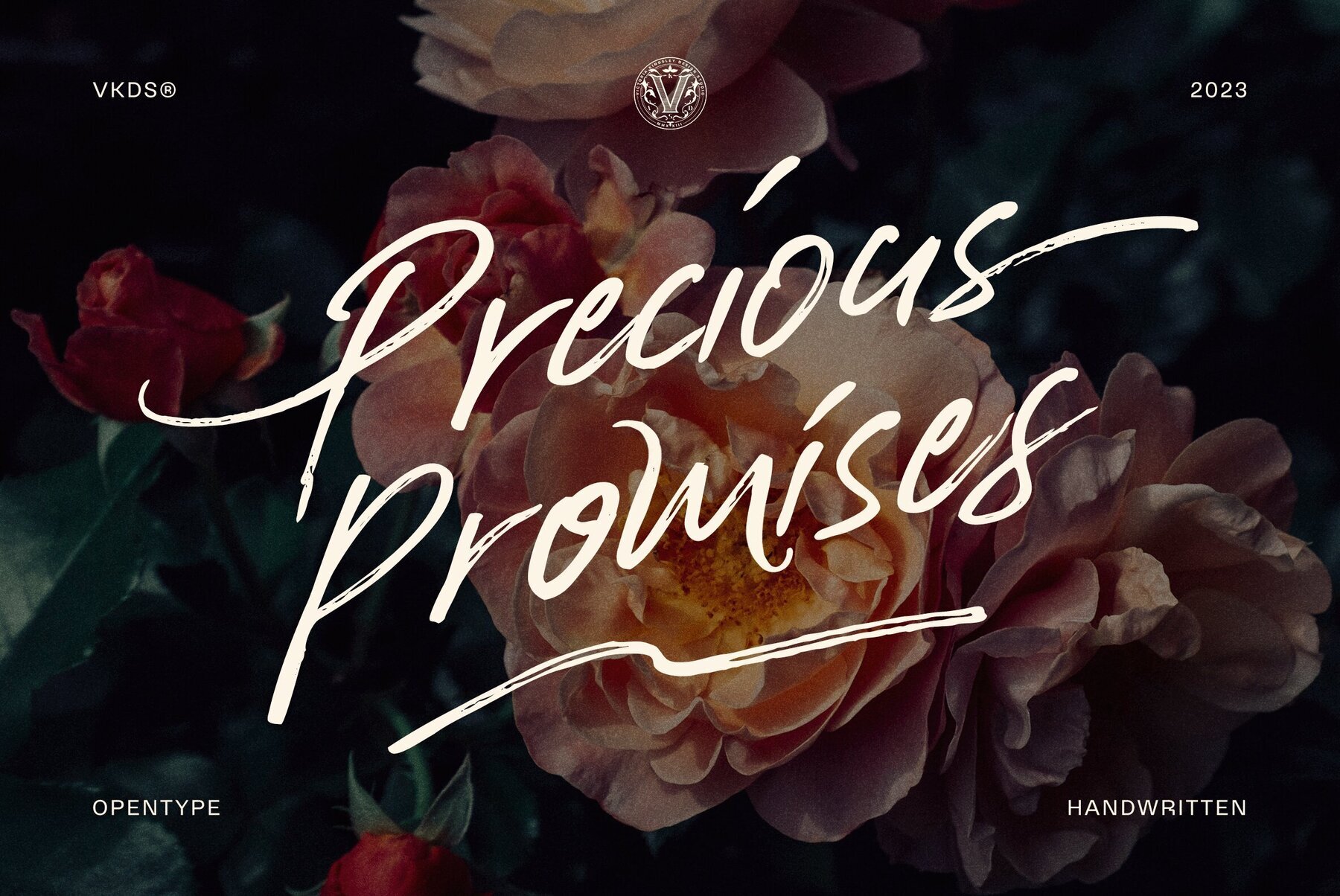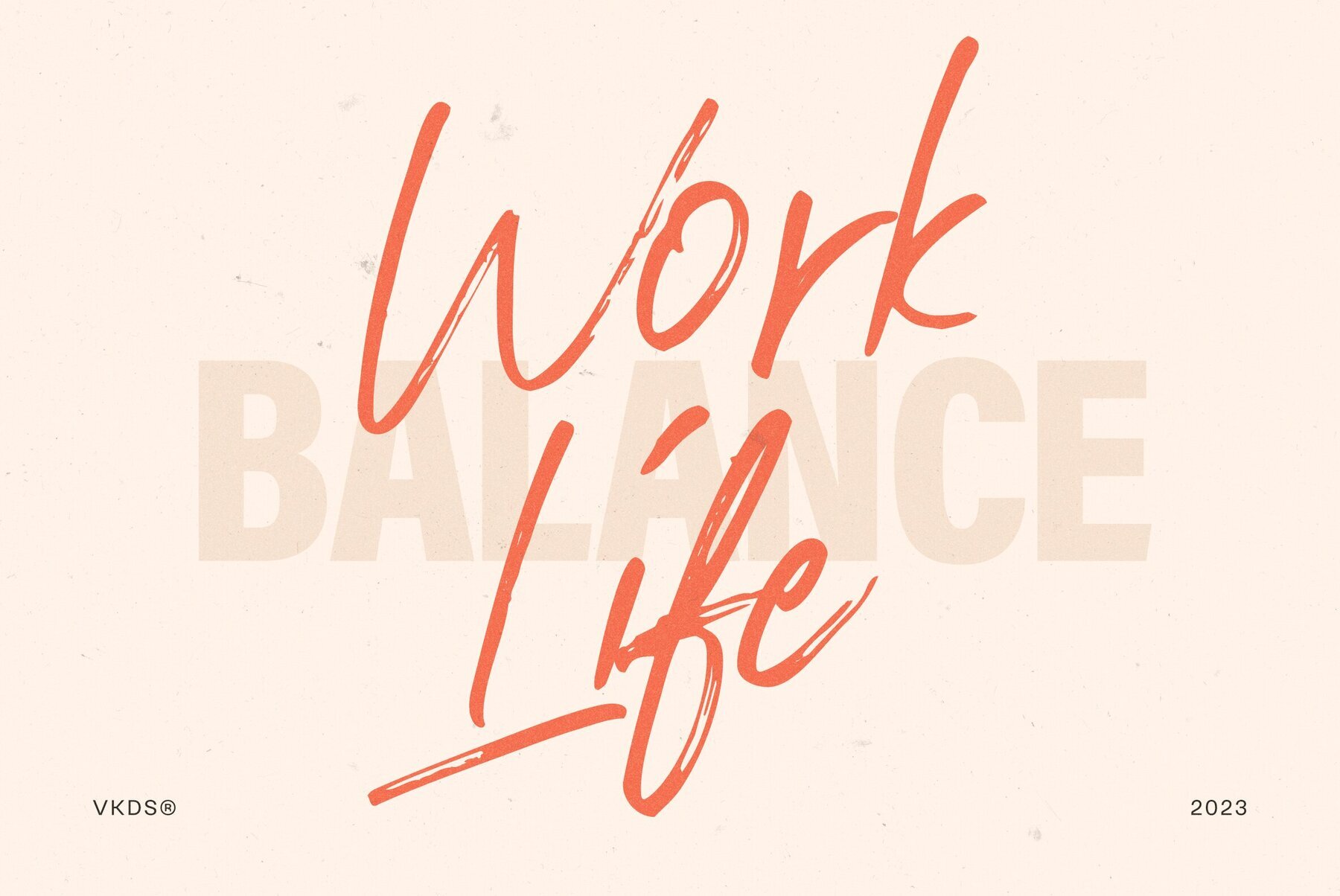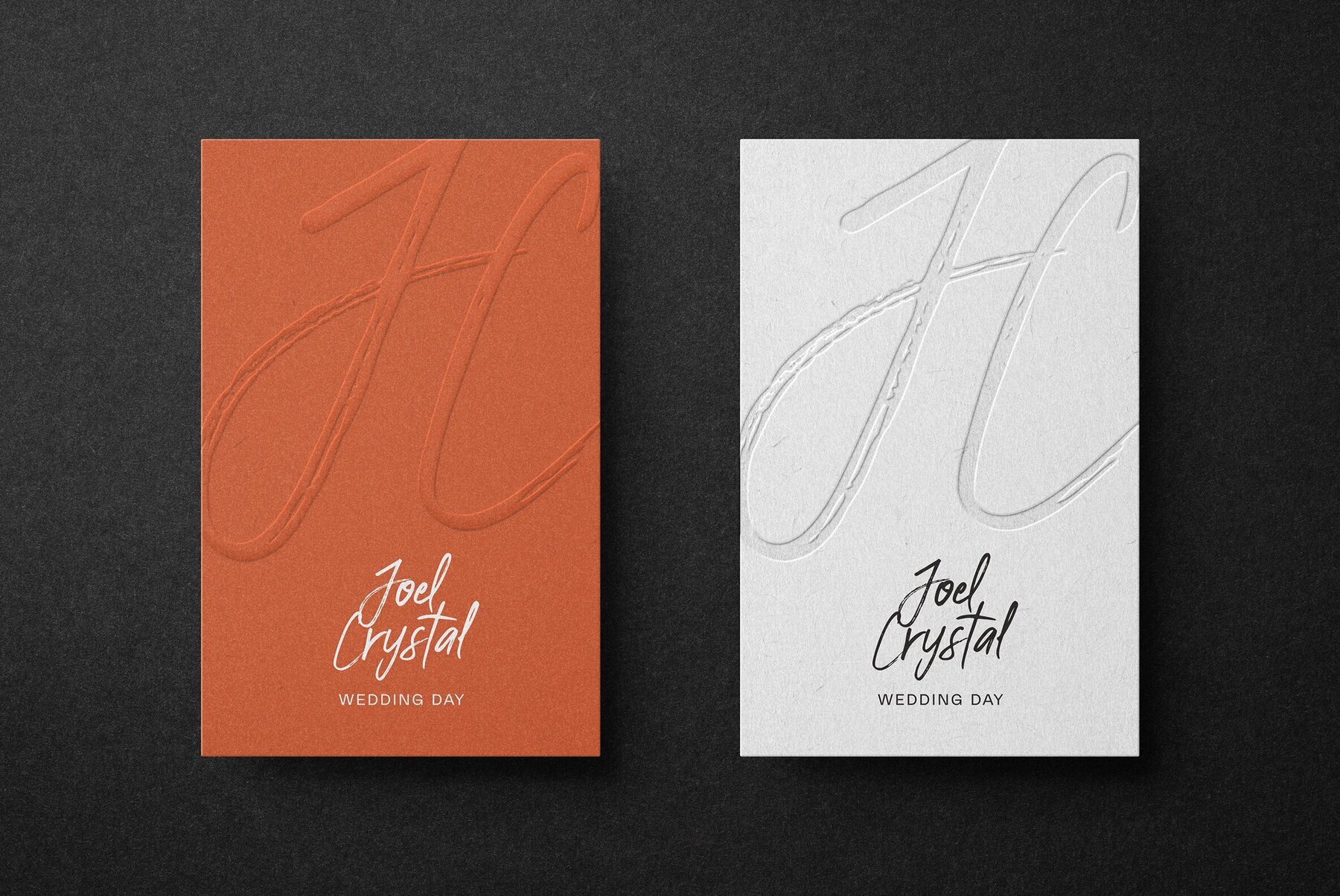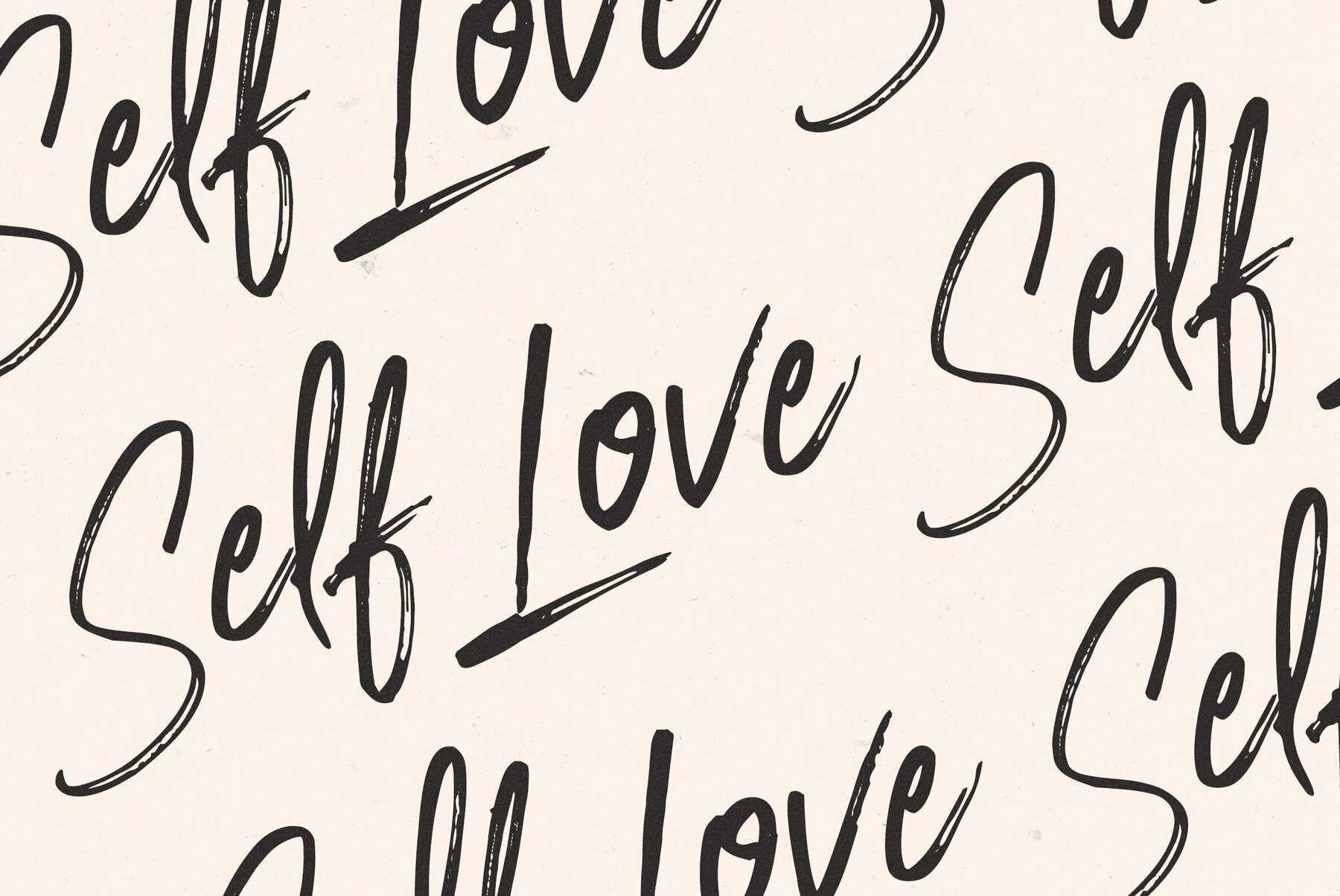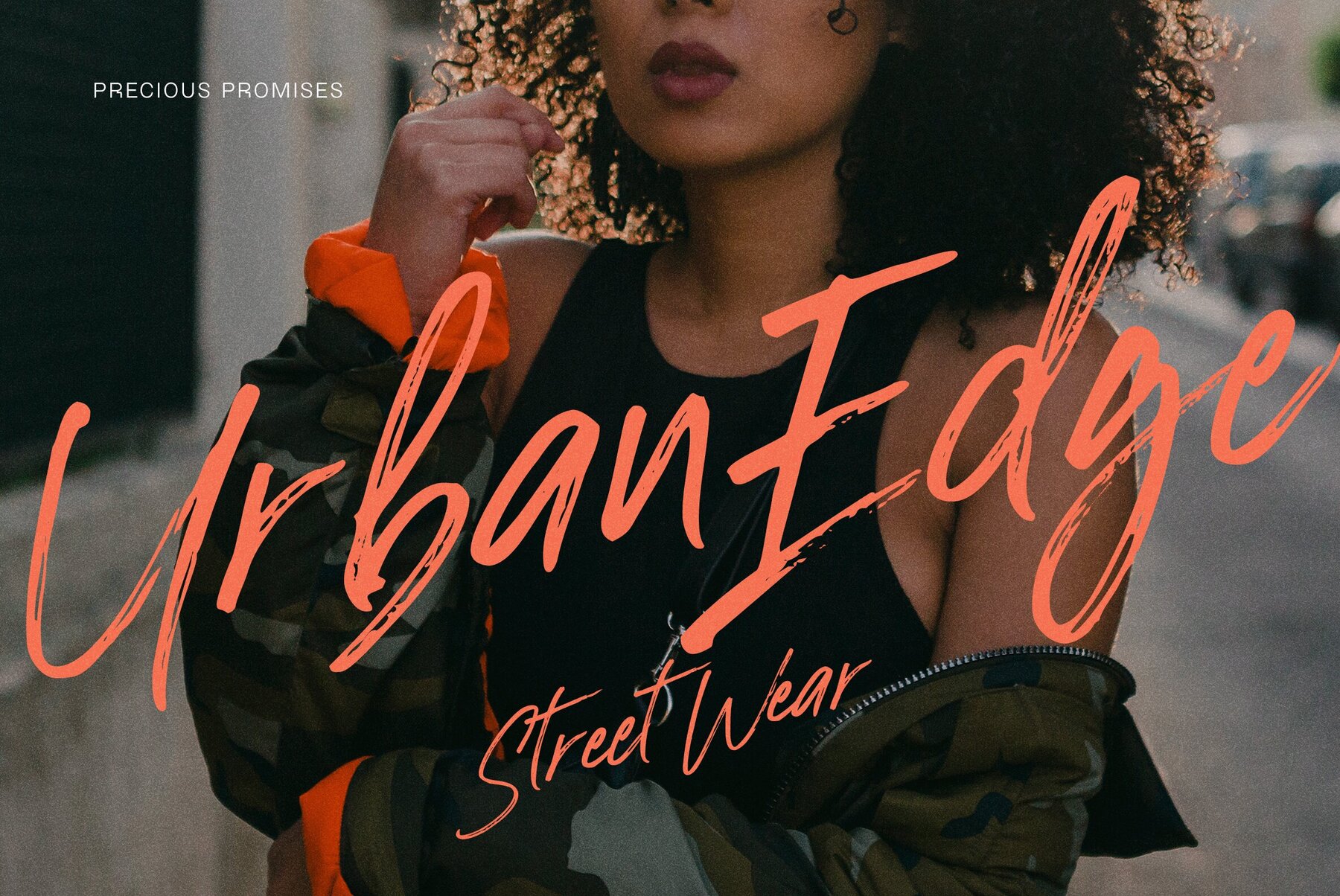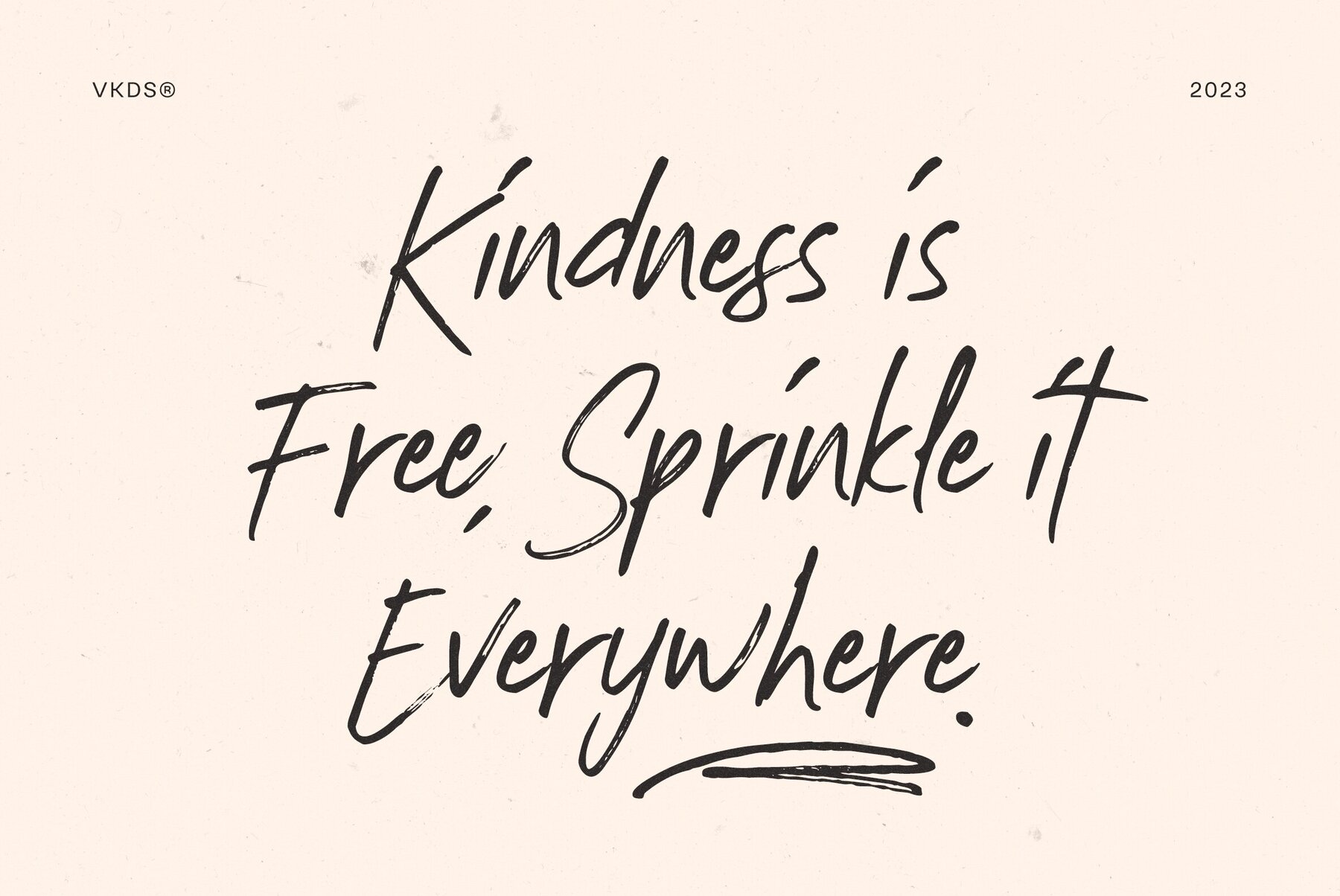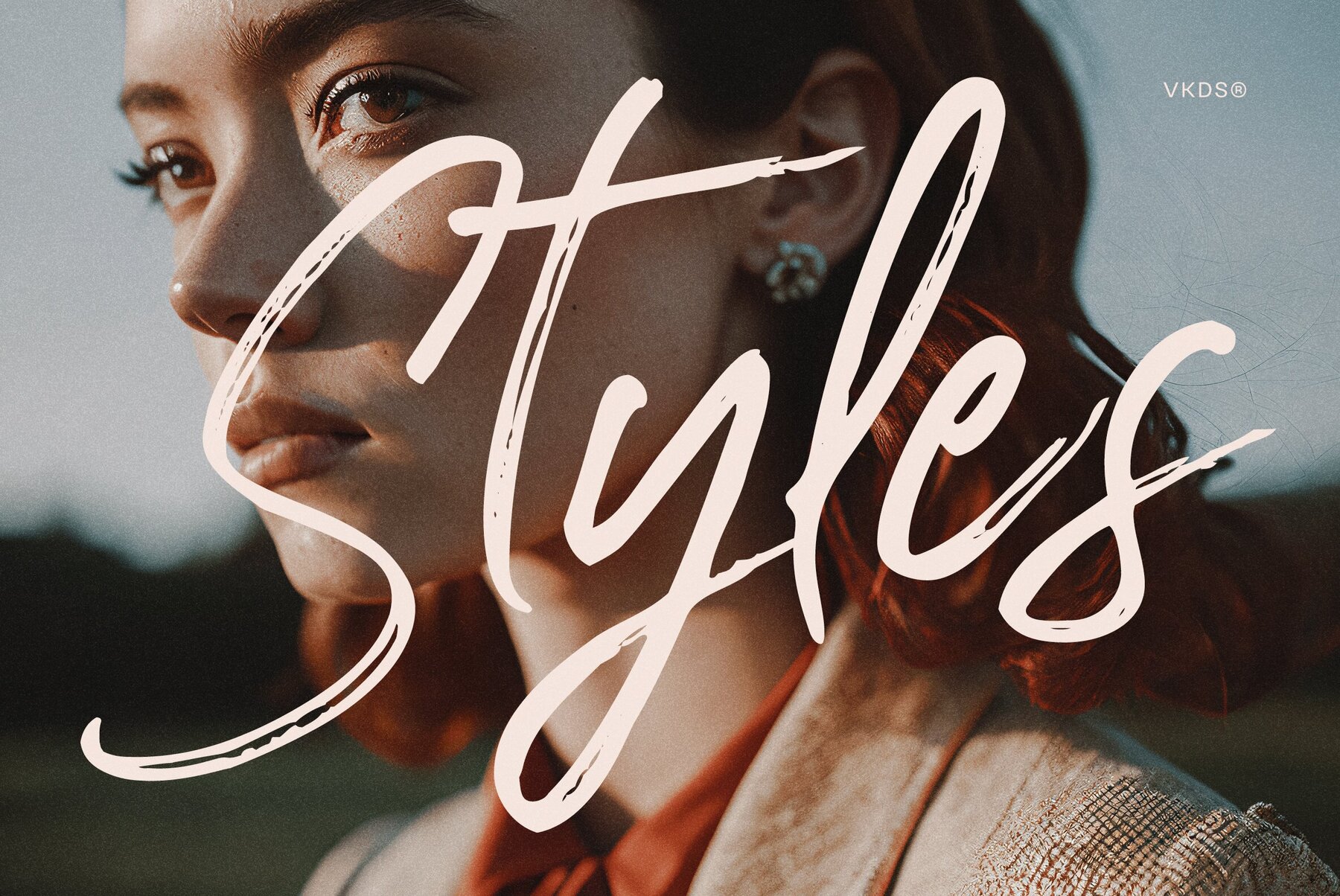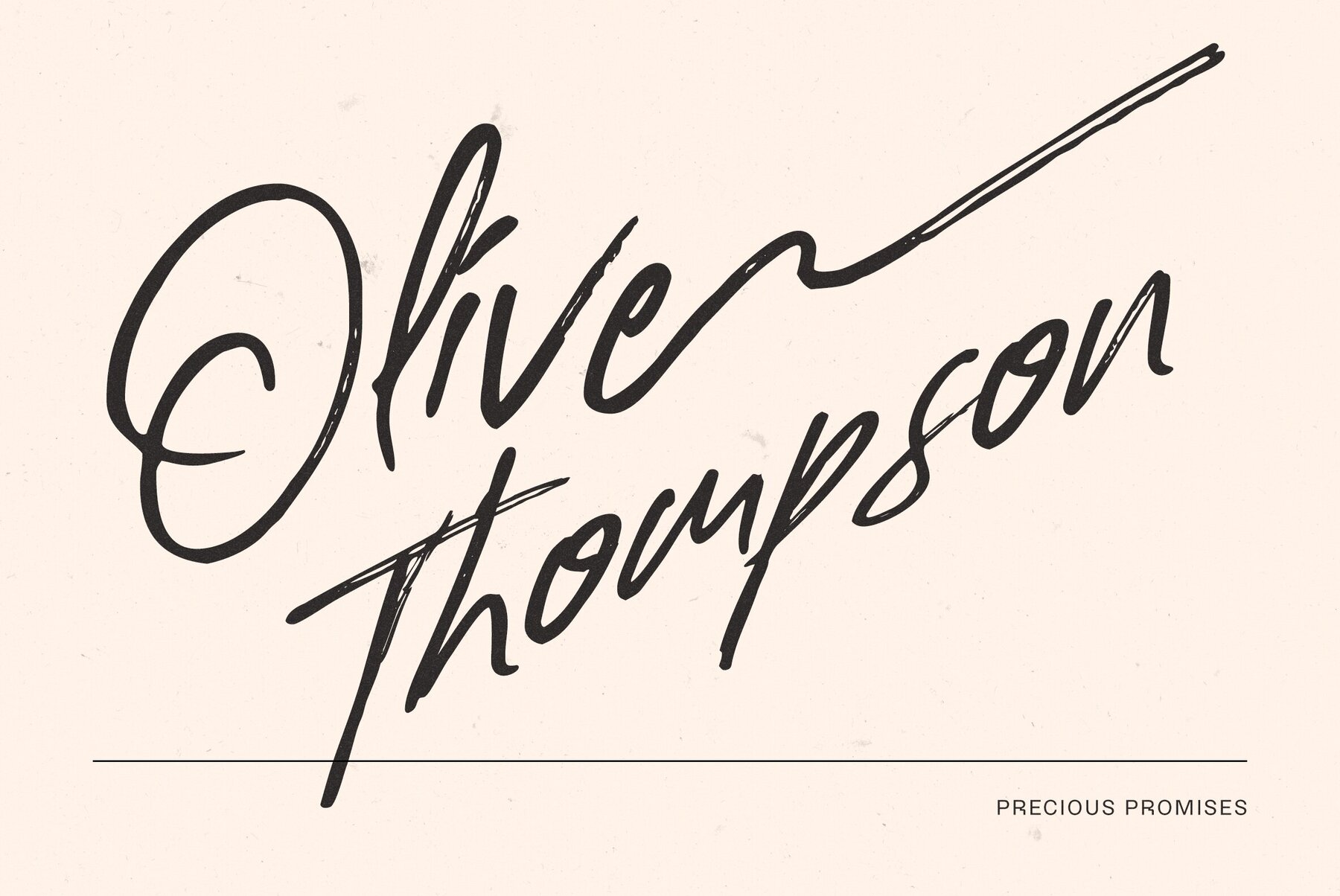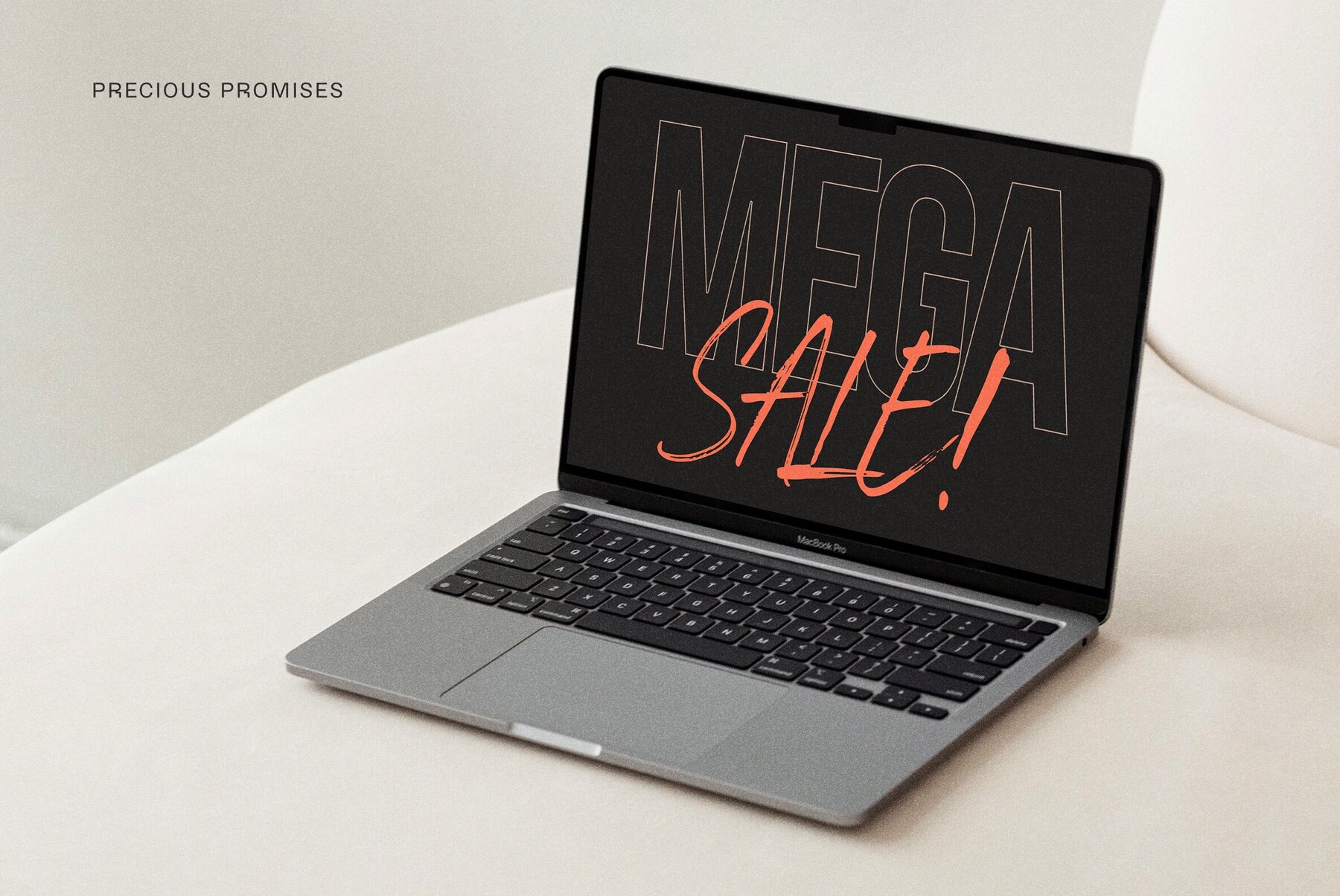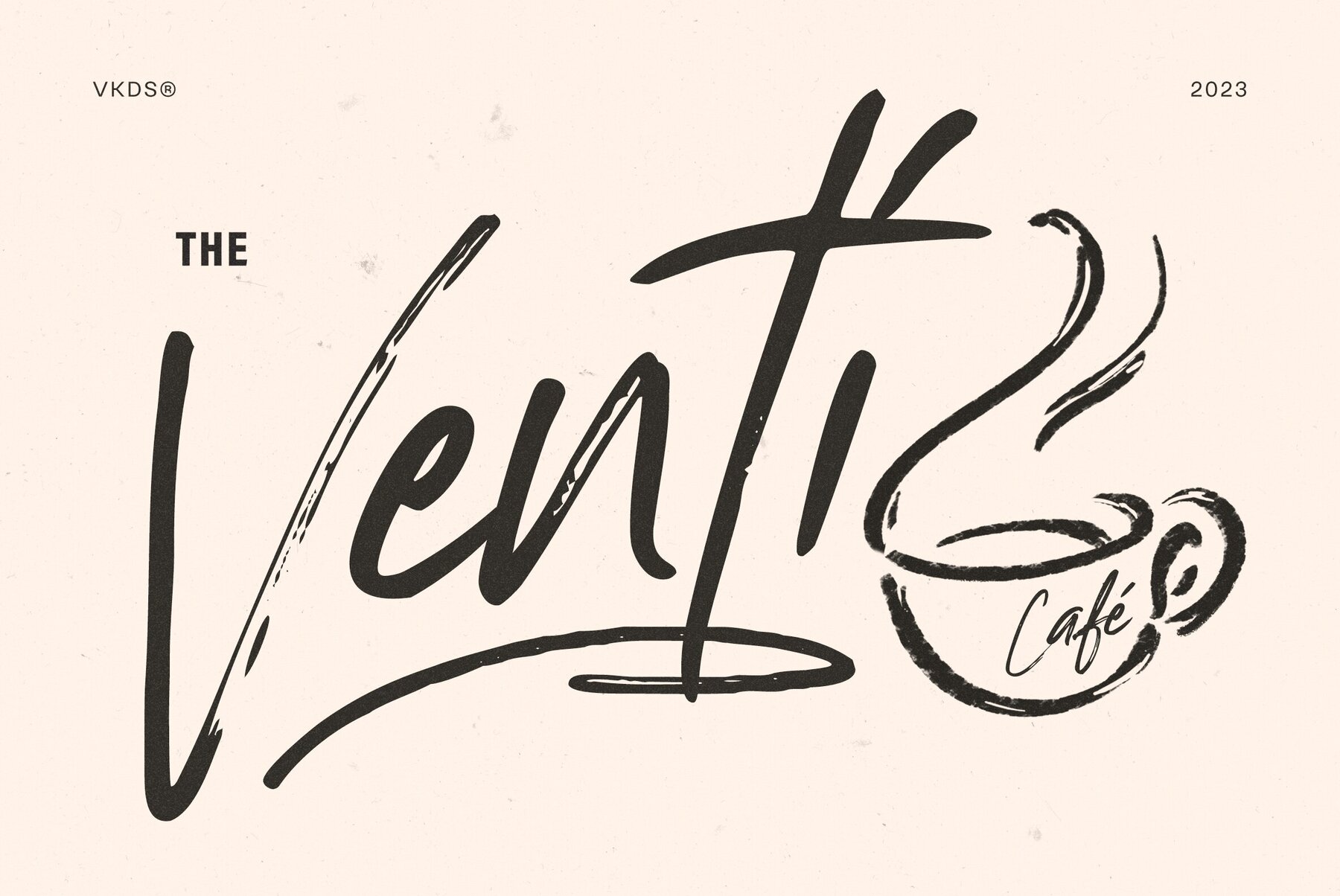
Precious Promises Font
Precious Promises Regular
Precious Promises Alt
Precious Promises Swash
Introducing Precious Promises, a script typeface imbued with the quiet elegance and subtle artistry one would expect from the discerning pen of Victoria Kingsley. This font serves as a testament to the power of understated beauty, providing the perfect medium for projects demanding a touch of the personal and the intimate, such as wedding invitations or missives that capture the heart. Venture into the realm of Precious Promises and unearth a selection of over 400 finely crafted glyphs, adorned with refined decorative swashes that elevate one's work with a whisper of sophistication. The font's OpenType features offer seamless integration and adaptability, empowering you to weave headlines that capture the imagination of your audience in a nuanced and intriguing manner. As an exclusive offering on YouWorkForThem, this font resonates with the aesthetic sensibilities of graphic designers and visual artists who appreciate the finer details in life. The addition of Precious Promises to your design kit is not merely an acquisition of another font; it is an embrace of an artful resource that aligns with the values and aspirations of the creatively inclined. Let the delicate elegance of this typeface enhance your projects, allowing you to convey your message with a unique grace. Additional products used for slideshow images: